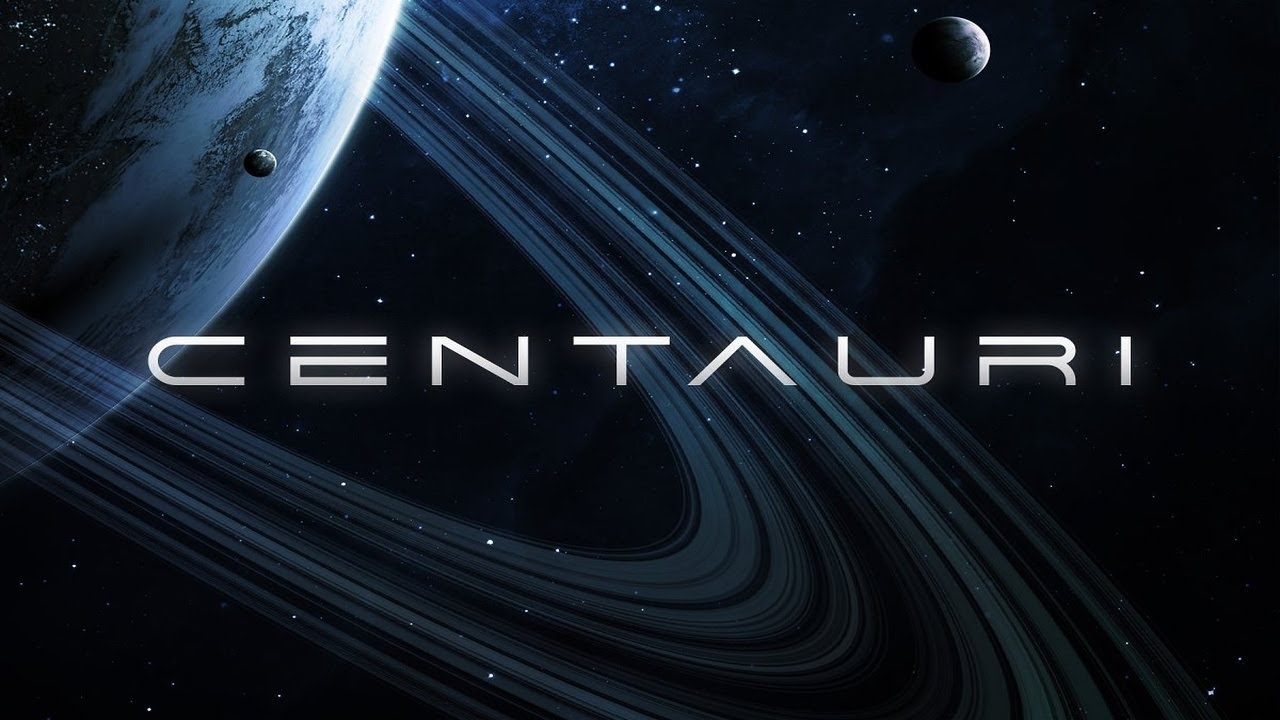
Alpha Centauri Font Dafont Centauri is a futuristic font with minimalist, wide letters. it includes english uppercase letters, alternate letters, basic punctuation. Archive of freely downloadable fonts. browse by alphabetical listing, by style, by author or by popularity.
Centauri Font Dafont File The centauri futuristic font family includes regular, bold, light, outline, glow, condensed, extended, and holographic variants, providing designers with comprehensive typographic options for various design scenarios and futuristic communication needs. Download the centaur font for free and add unique style to your designs. perfect for logos, posters, and any creative project. Download centauri font free! fontzone offering 1000's of free fonts to download to help the millions of designers across the globe expressing their creativity with much more diversity. Free centauri font download. centauri.ttf windows and mac compatible. truetype and opentype fonts available. search for other dingbats and signs fonts.
Centauri Font Fontforlife If you are looking to download the centauri font for free, our website has it for you. additionally, our text generator allows you to preview the font's alphabet (uppercase and lowercase letters, special characters) online. Centauri font is a futuristic font with minimalist, wide letters. it includes english uppercase letters, alternate letters, basic punctuation, and numbers. Centauri font download. view font details, character map, custom preview, download, file contents and more. Centaurus à € by iconian fonts in fancy > various 22,956 downloads (2 yesterday) donationware 9 font files download.